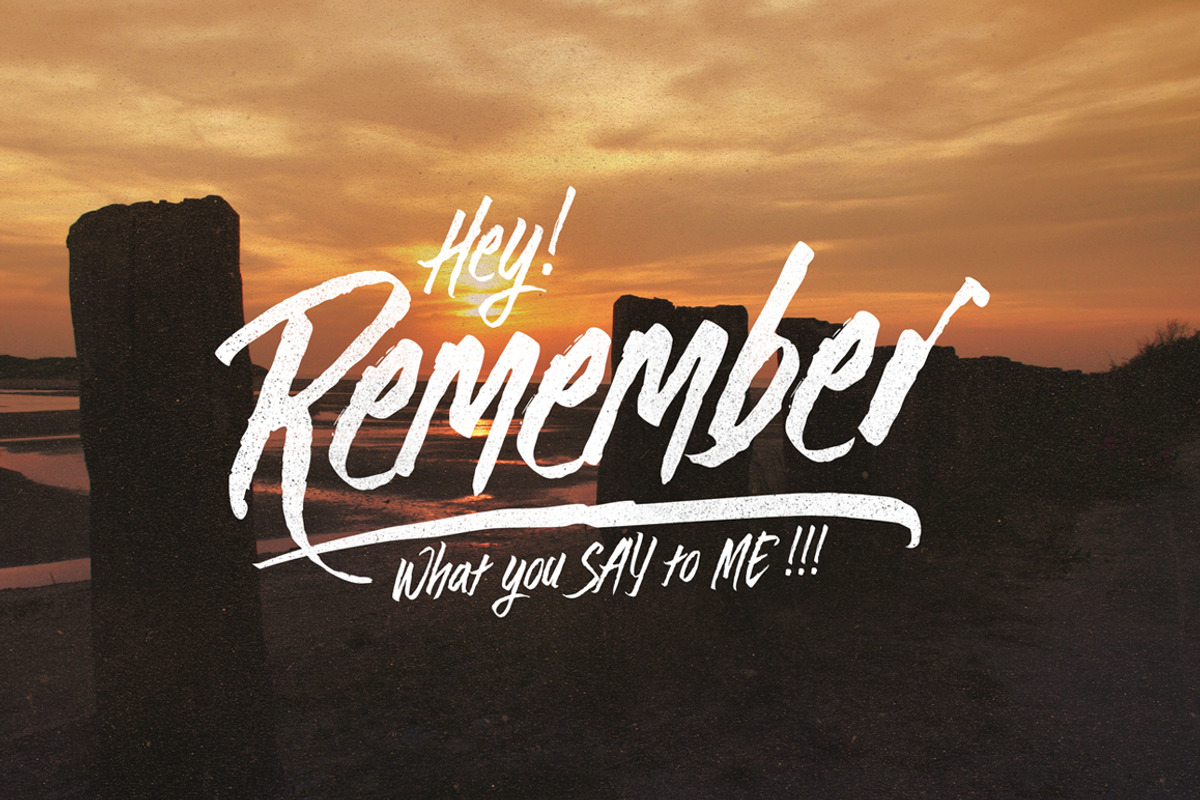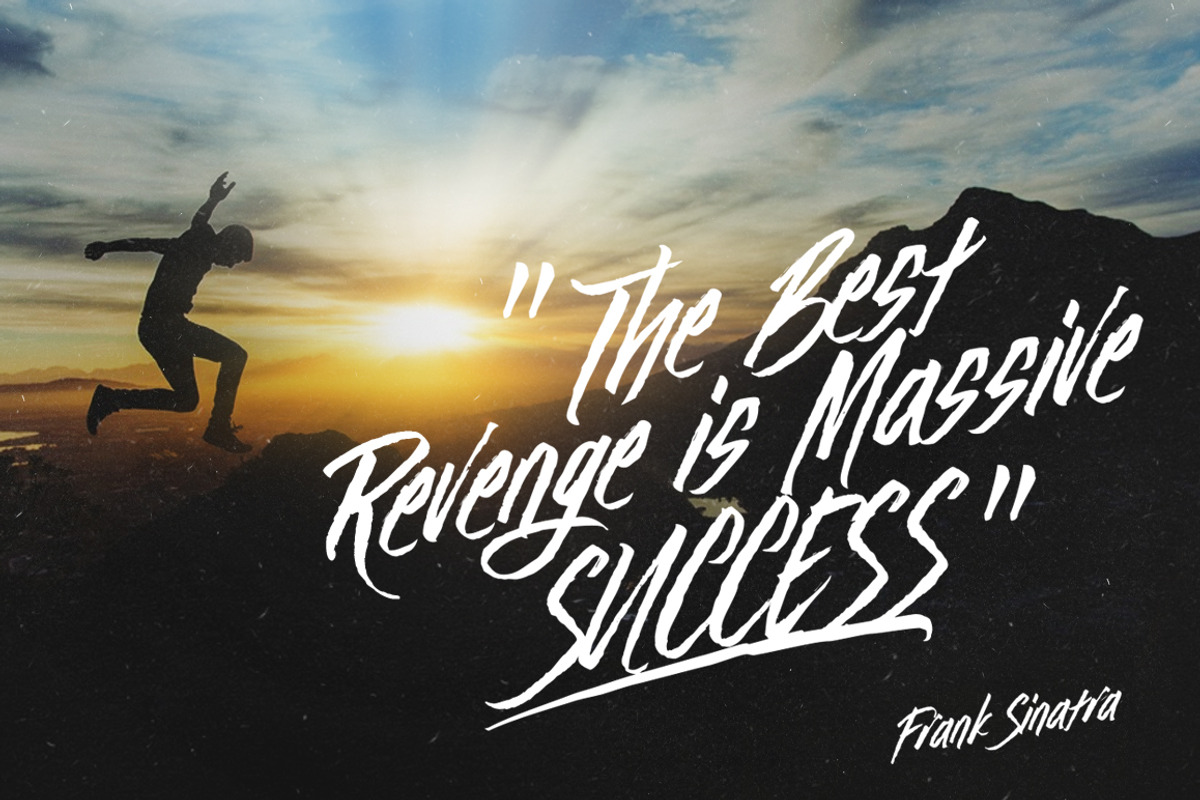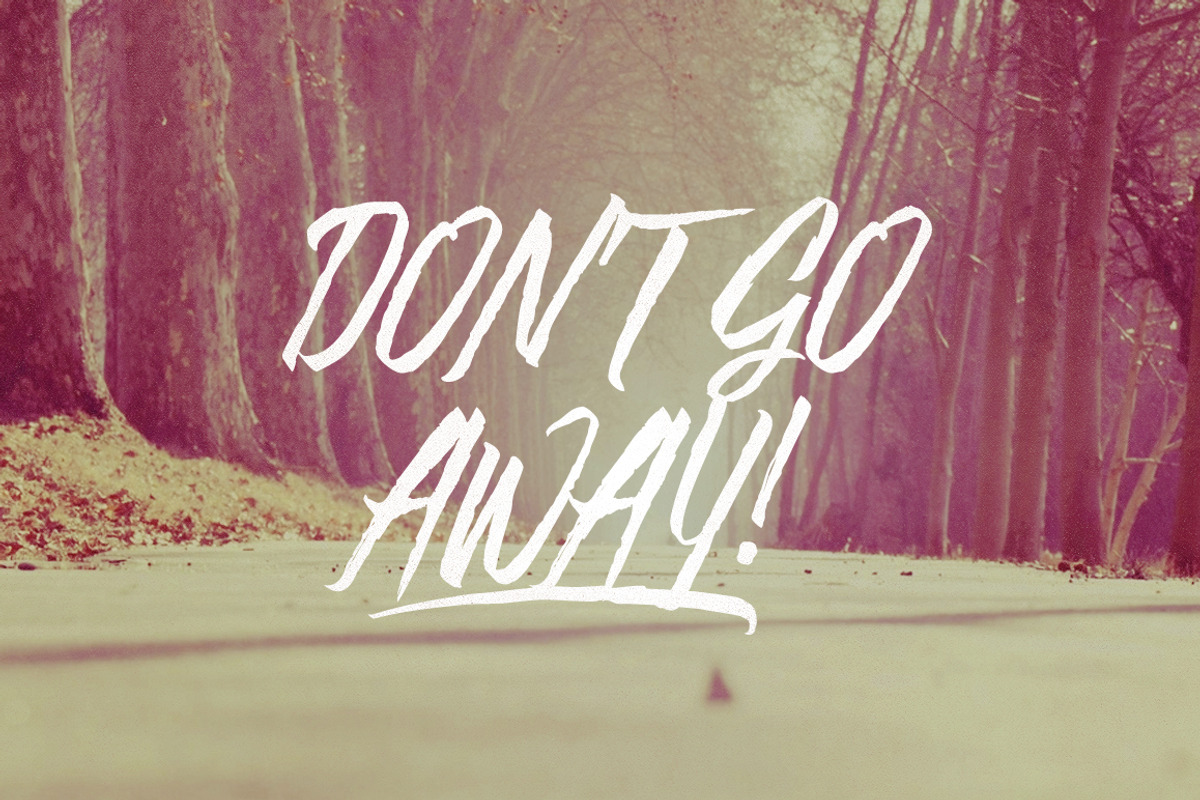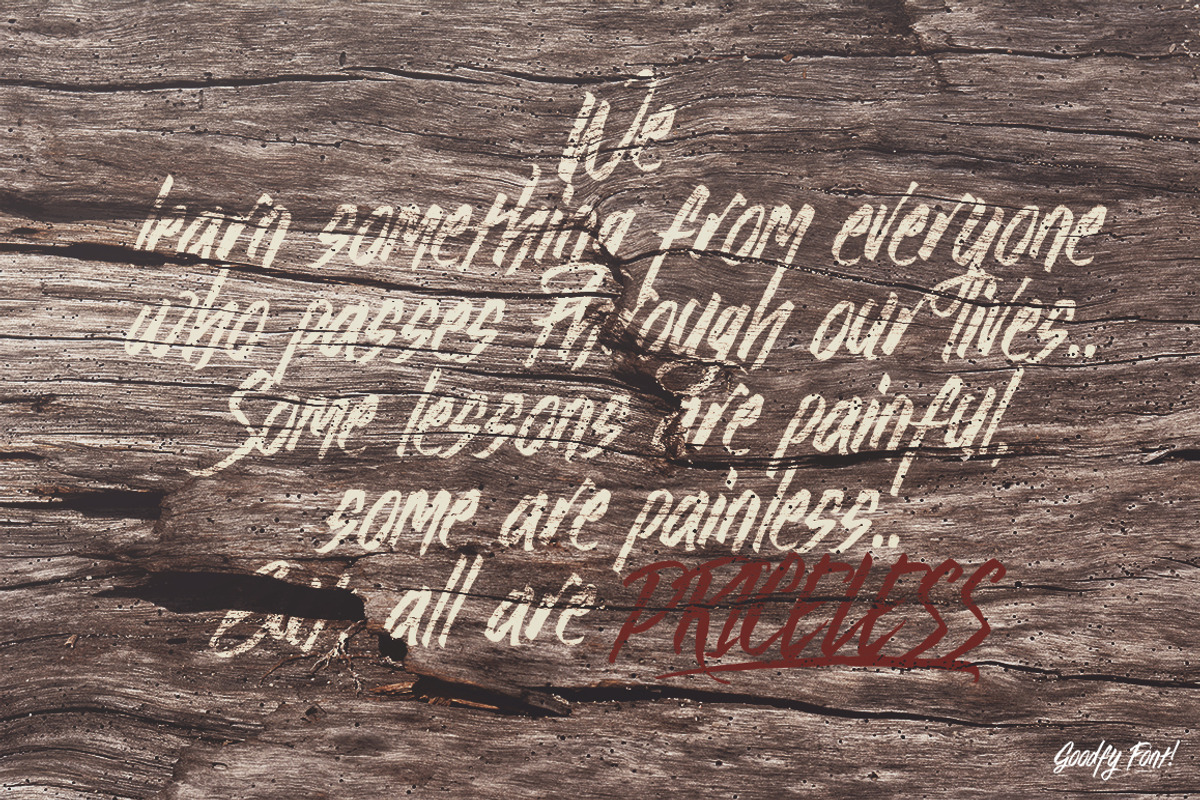
Goodfy - A Rush Handwritten Font
Goodfy - A Rush Handwritten Font by dexsarharryfonts is a font selected for branding, posters, packaging, typography.
- This font is designed for handwriting design, photography, t-shirt or everything who need rush feel and works good for Uppercase and Lowerca
Why Goodfy - A Rush Handwritten Font is worth a look
Goodfy - A Rush Handwritten Font by dexsarharryfonts fits naturally into Branding, posters, packaging, typography.